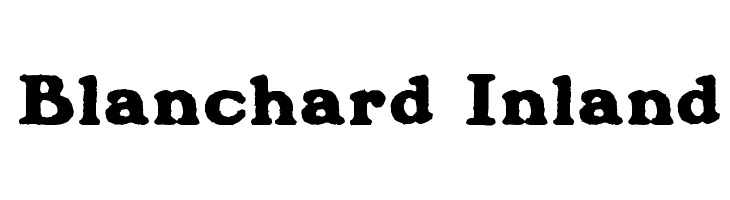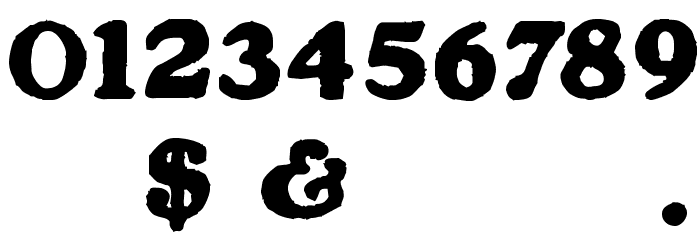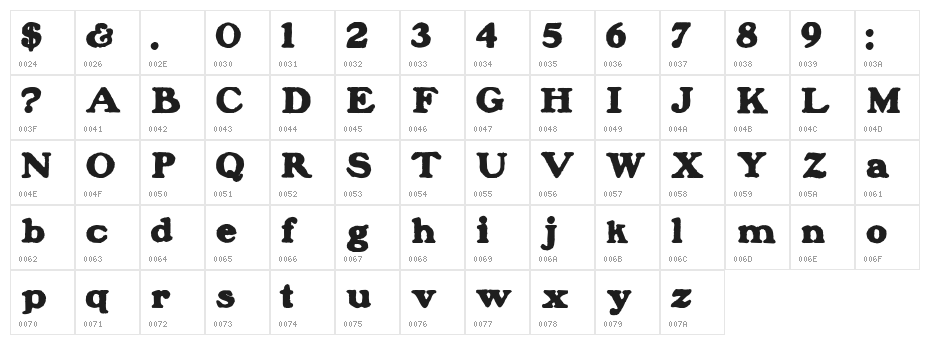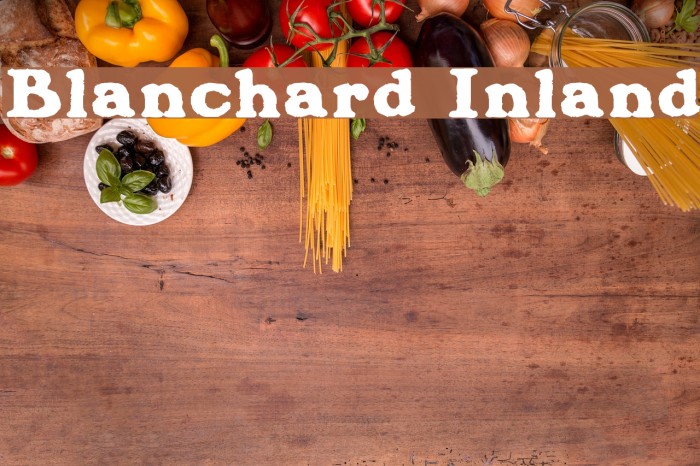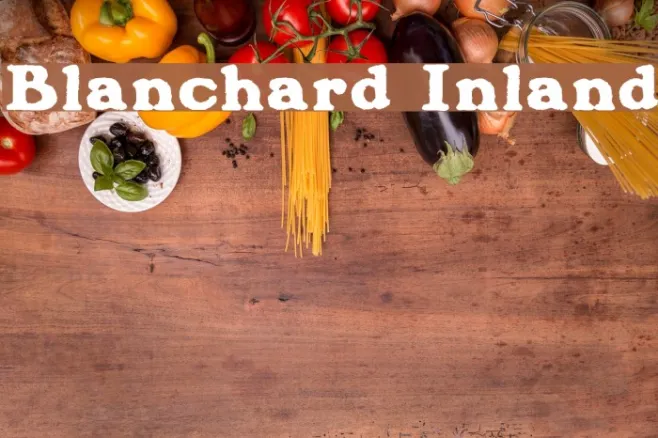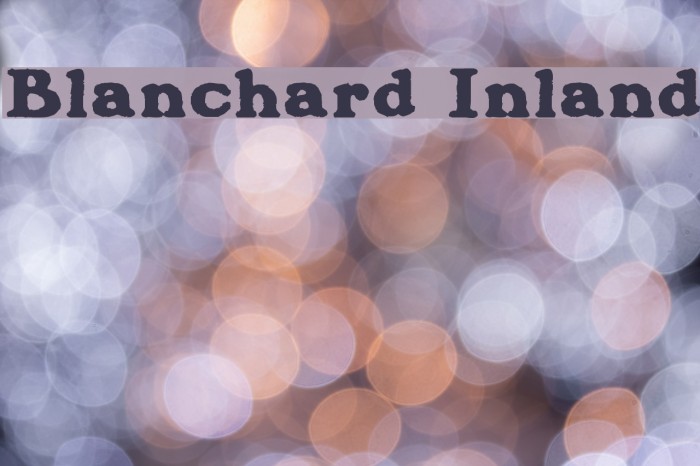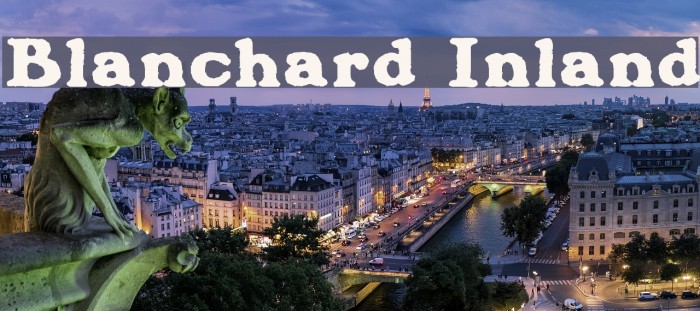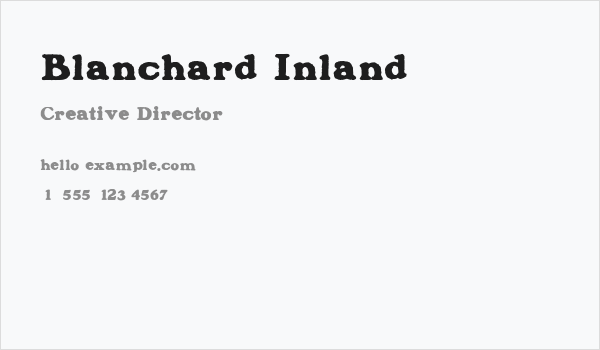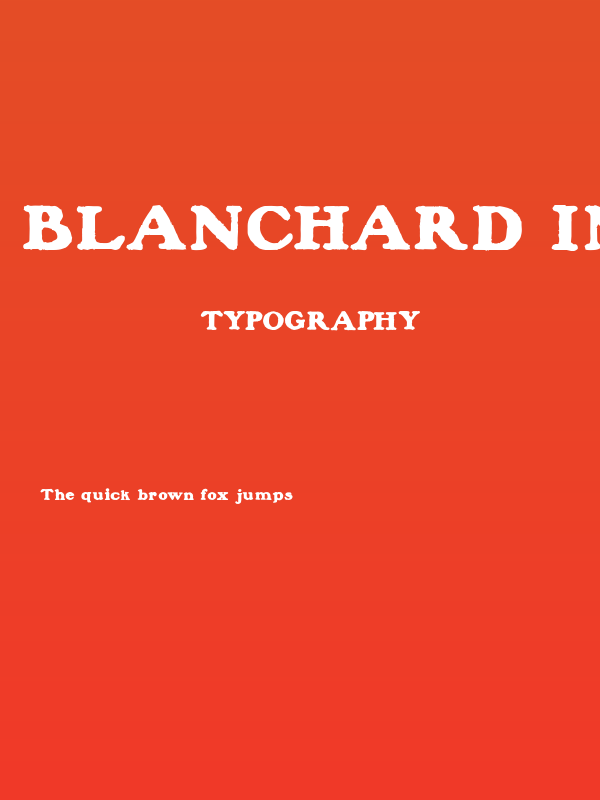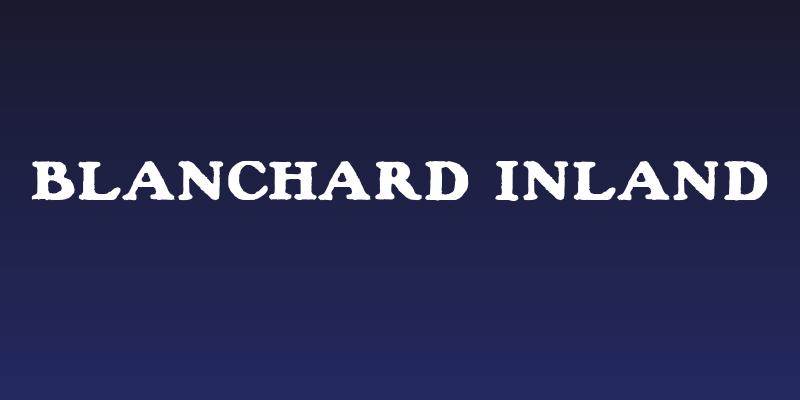
Blanchard Inland Font
Blanchard Inland Description
This font features a bold and robust design with a strong presence. The characters are thick and have a slightly distressed appearance, giving them a vintage and handcrafted feel. The serifs are prominent and add to the overall classic aesthetic. The uppercase letters are well-defined, while the lowercase letters maintain a consistent style. Numbers are equally bold, ensuring readability. The special characters are distinct and match the overall boldness of the font. This style is reminiscent of old printing press fonts, making it ideal for projects that require a touch of nostalgia.
| Proposed Projects | Ideal for vintage-themed posters, branding, packaging, and signage that require a bold and classic touch. |